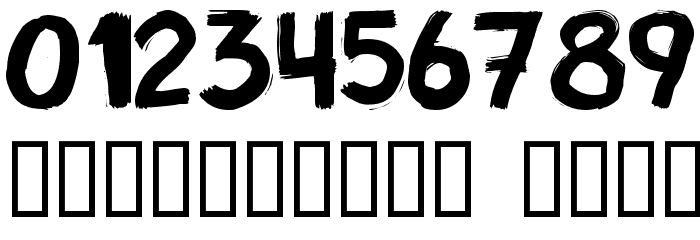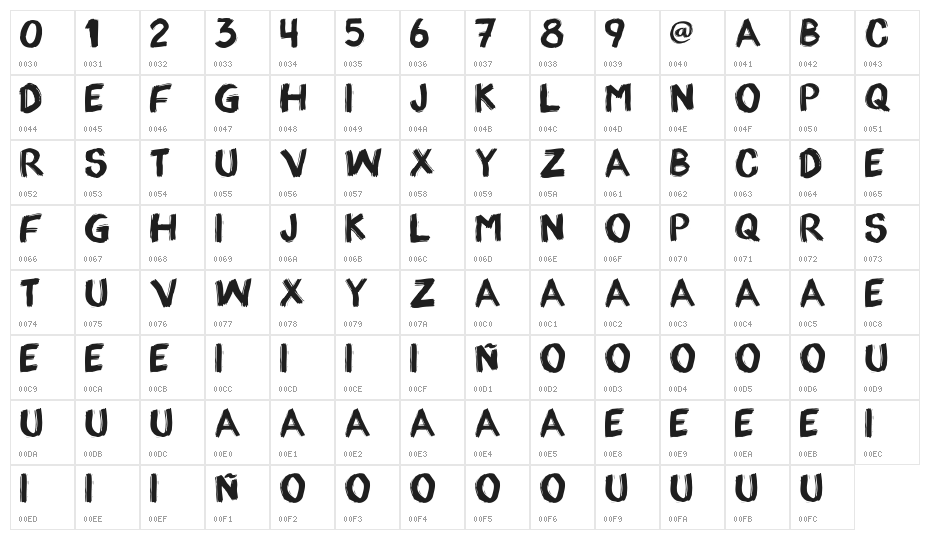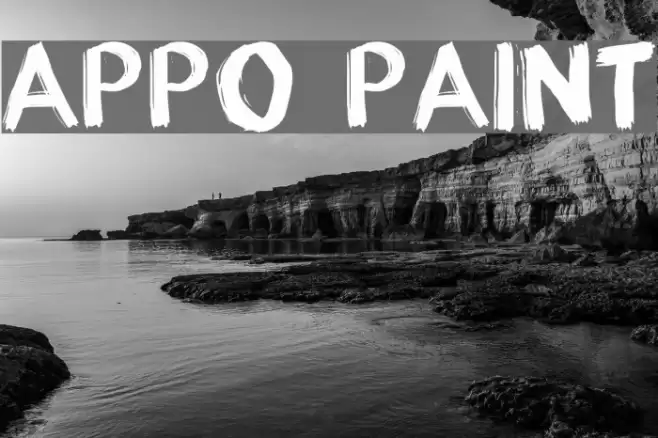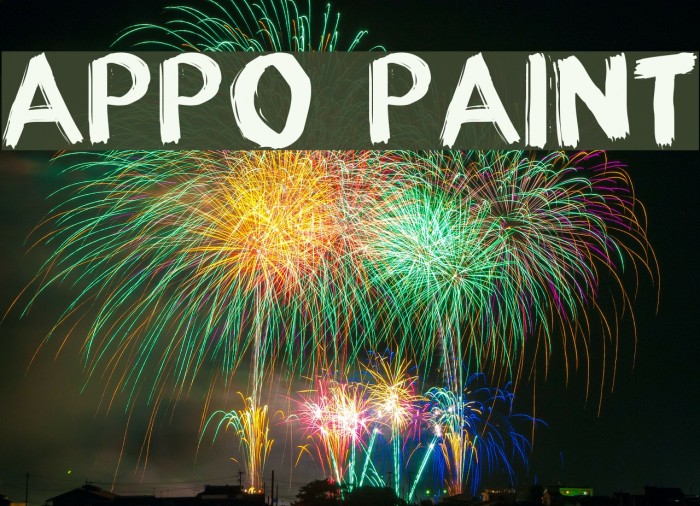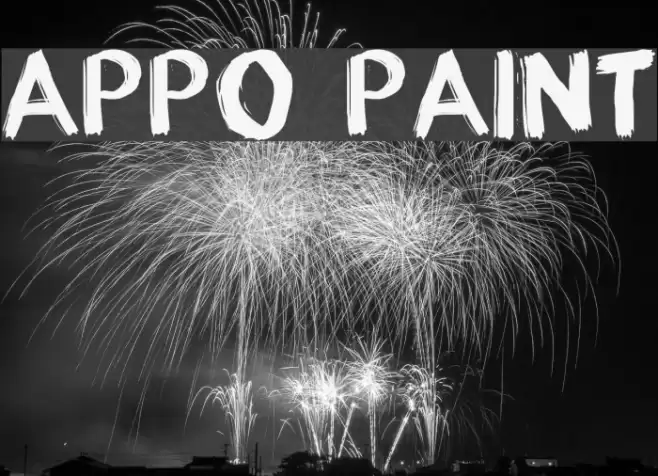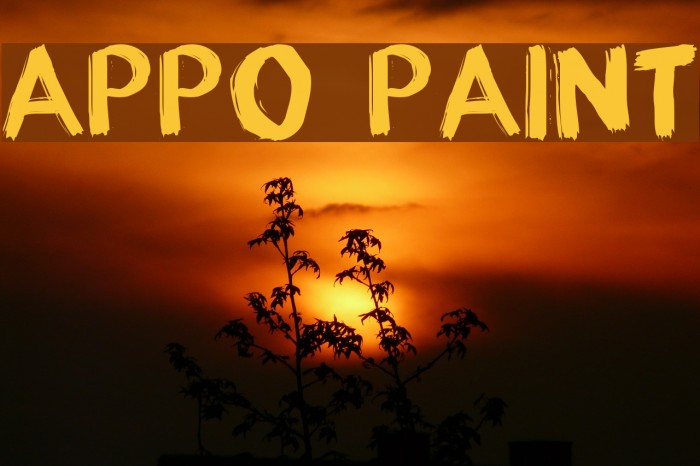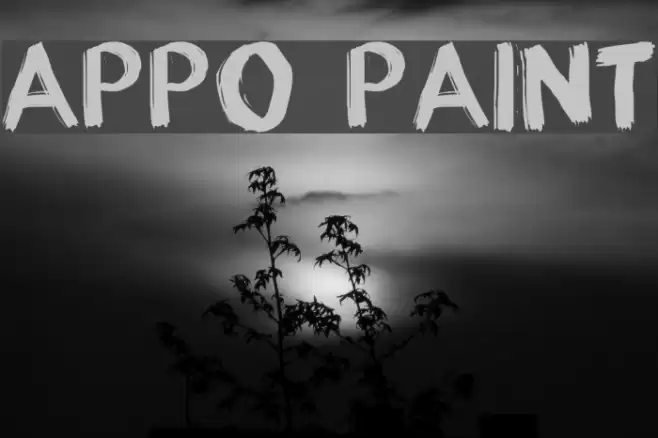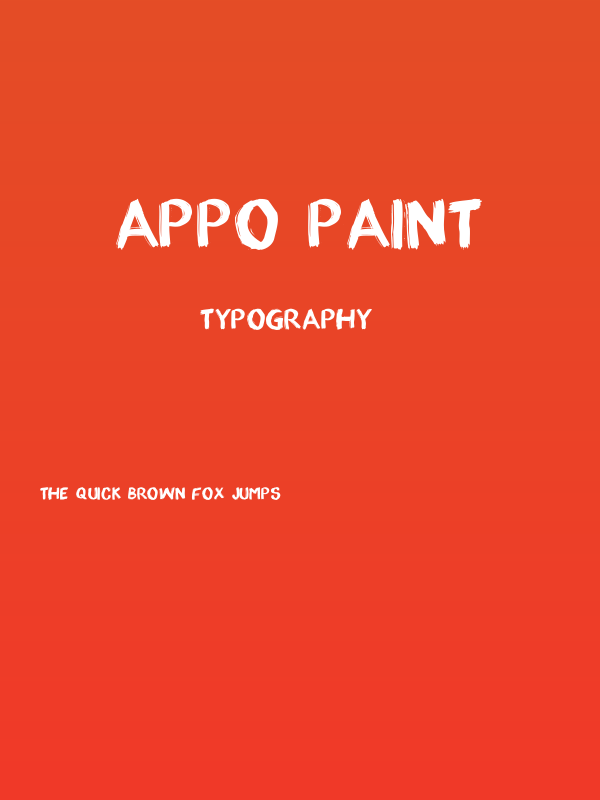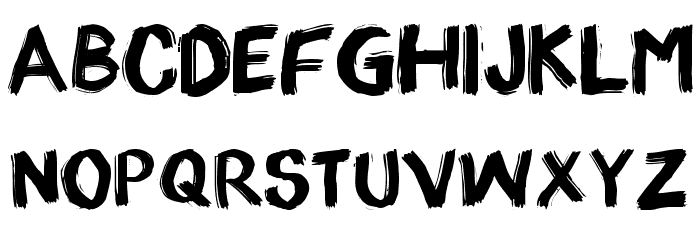
appo paint Font
appo paint Description
This font features a bold, brushstroke style that exudes energy and dynamism. The letters are crafted with a hand-painted appearance, giving each character a unique and artistic flair. The strokes are uneven, adding a sense of movement and spontaneity. This font is perfect for projects that require a creative and expressive touch, such as posters, artistic branding, or any design that aims to stand out with a bold statement. The characters are well-spaced, ensuring readability while maintaining their artistic integrity.
| Overall Style | Artistic, Dynamic, Expressive |
| Proposed Projects | Ideal for posters, artistic branding, creative projects, and any design needing a bold, expressive touch. |